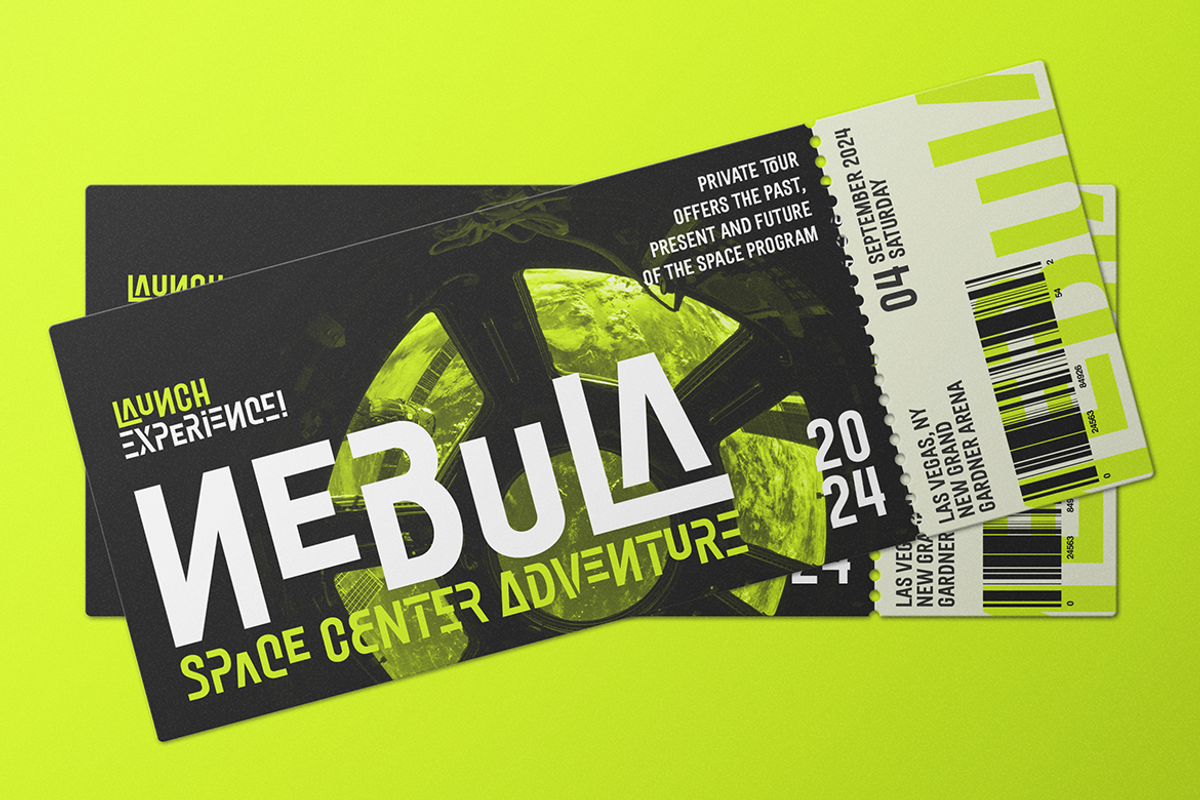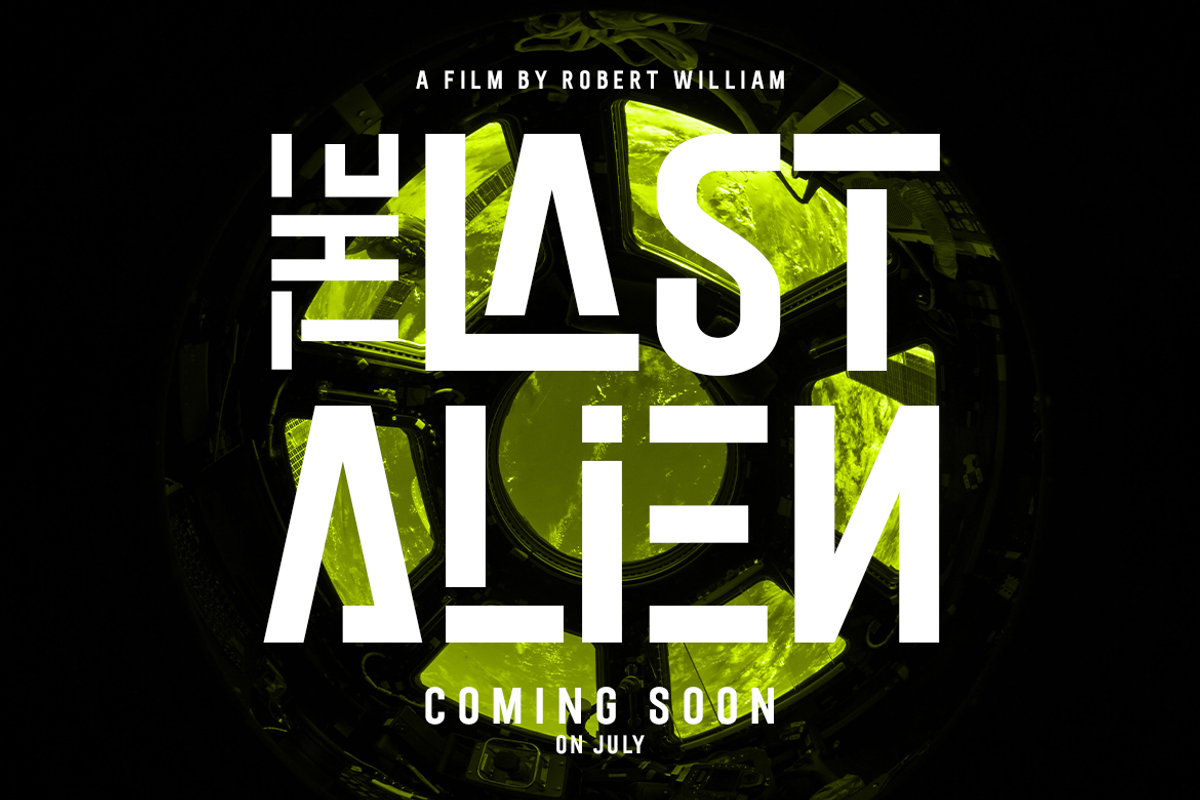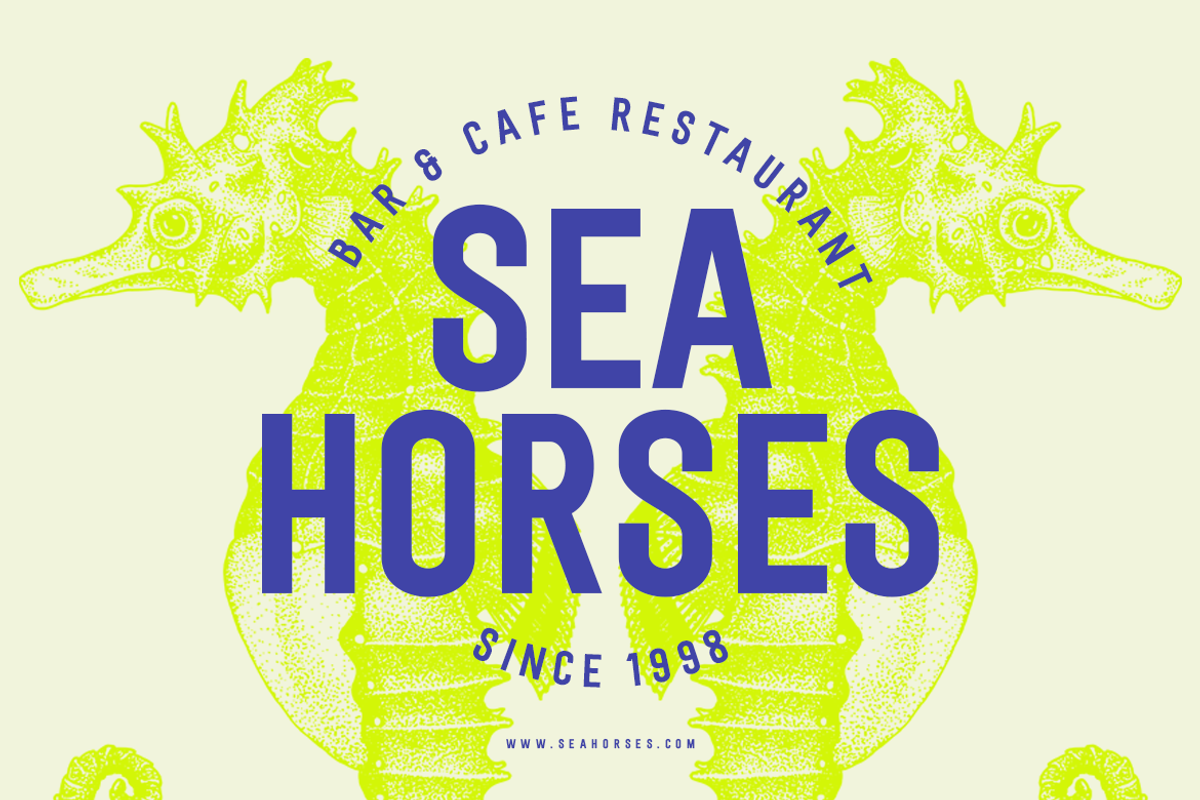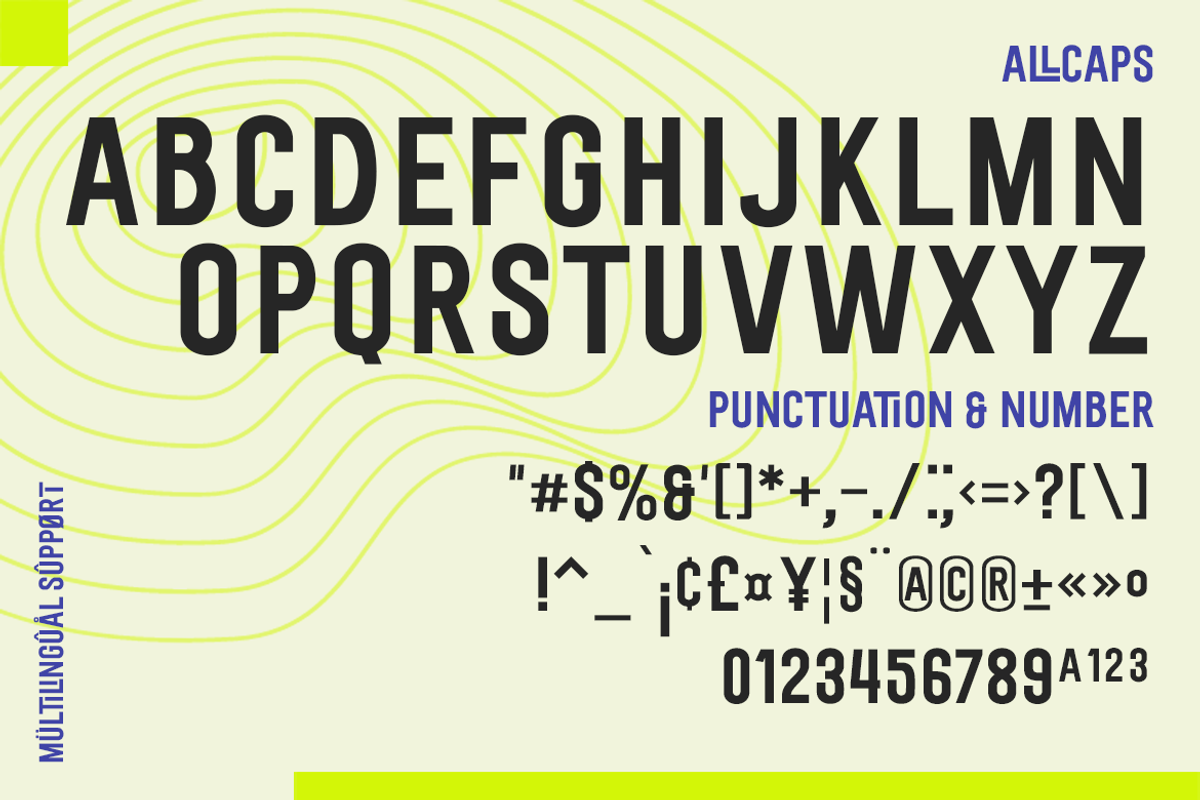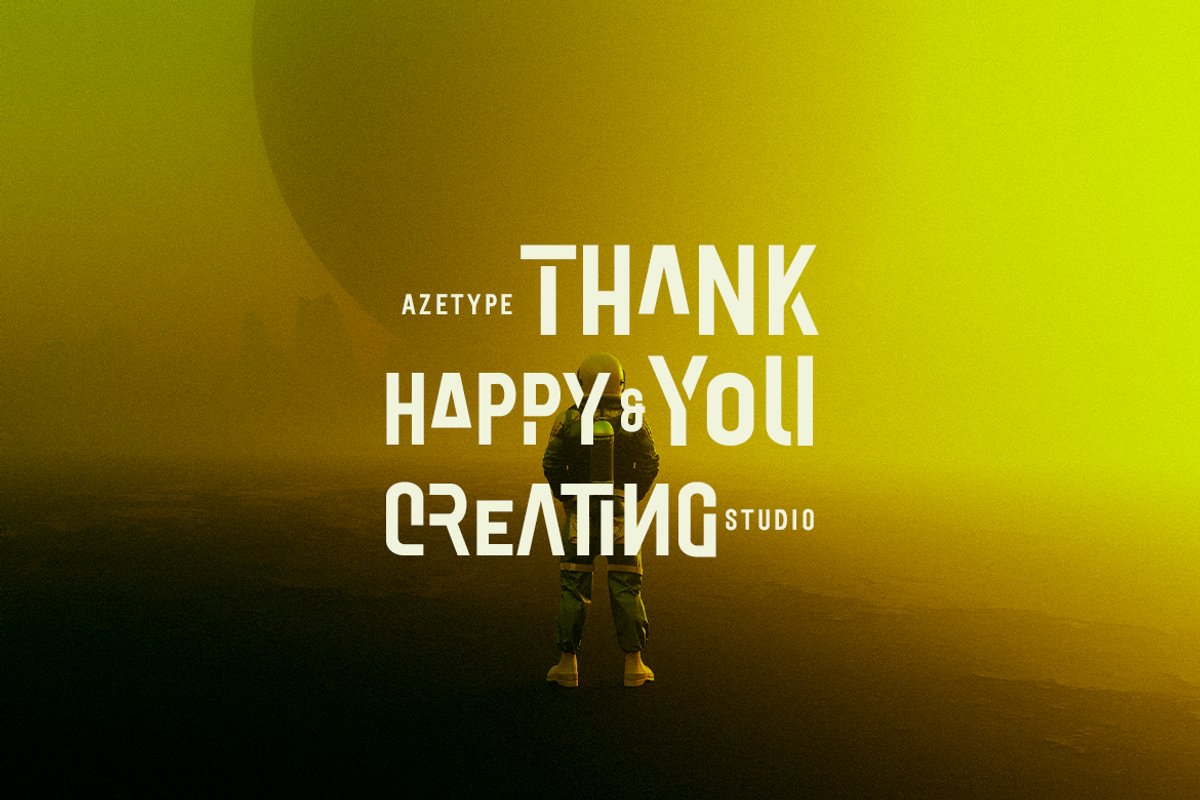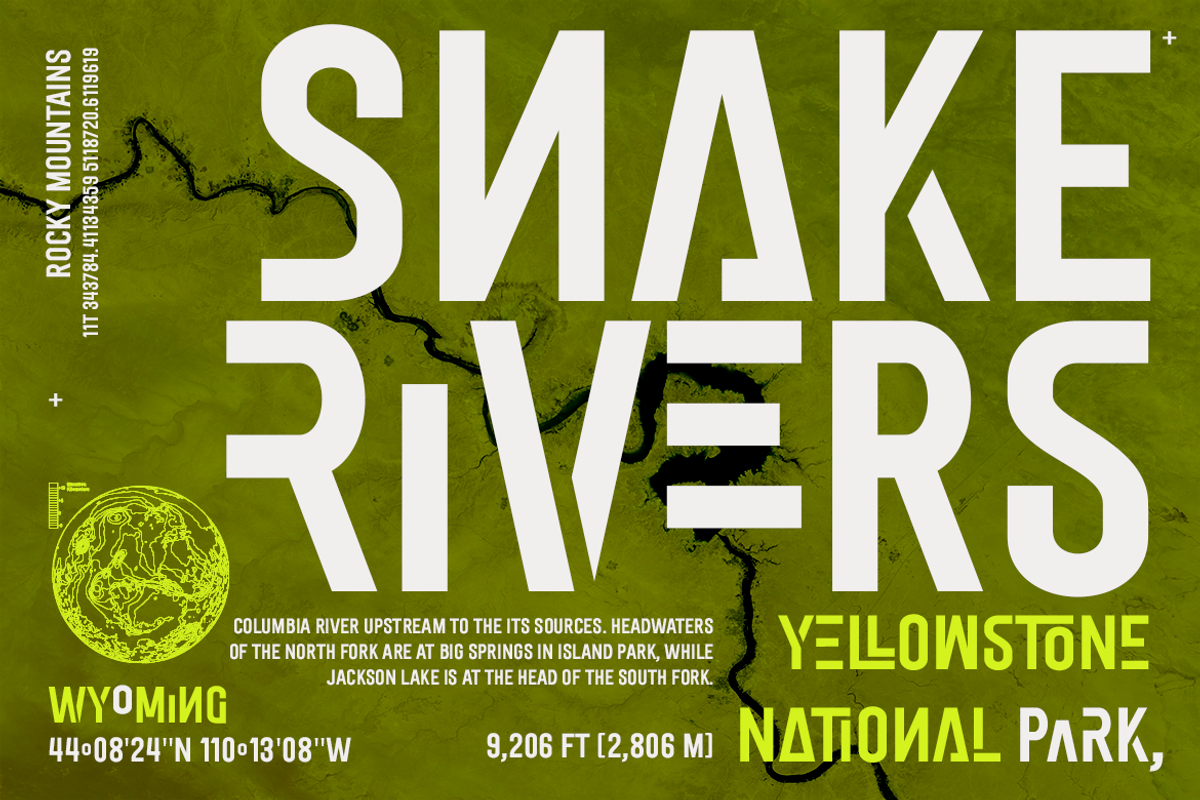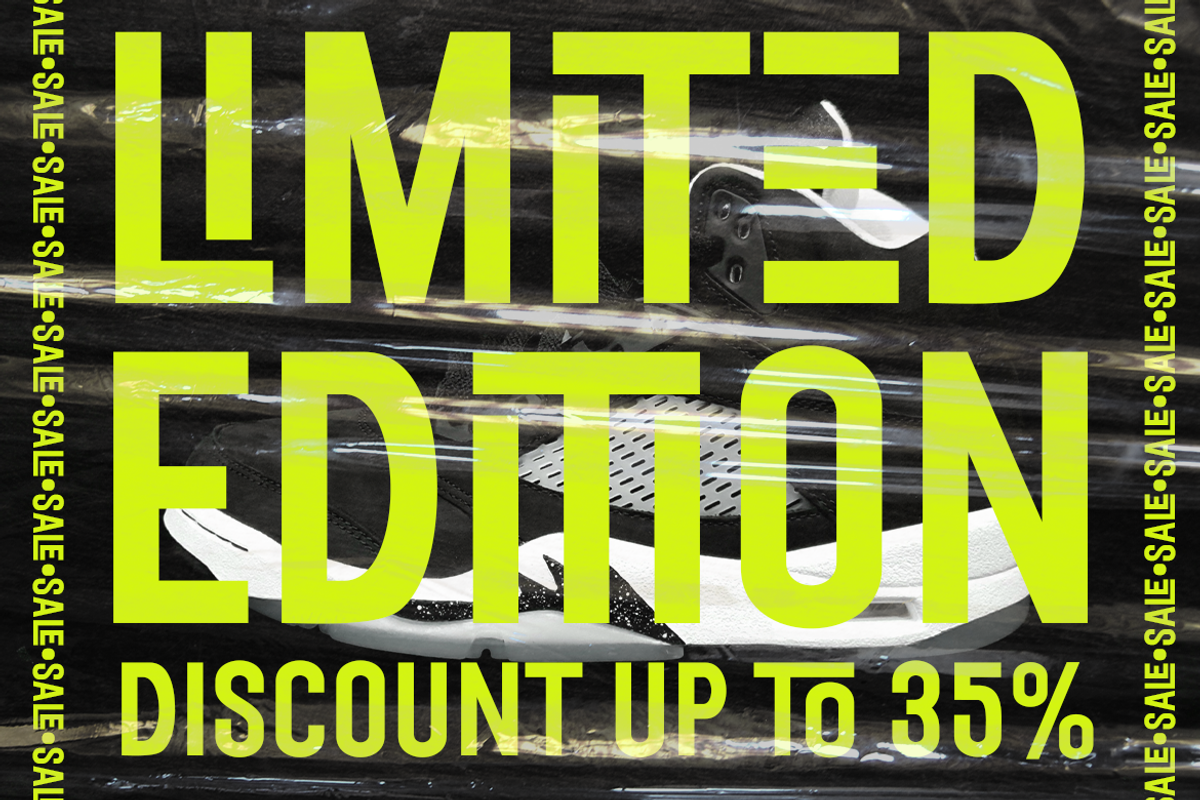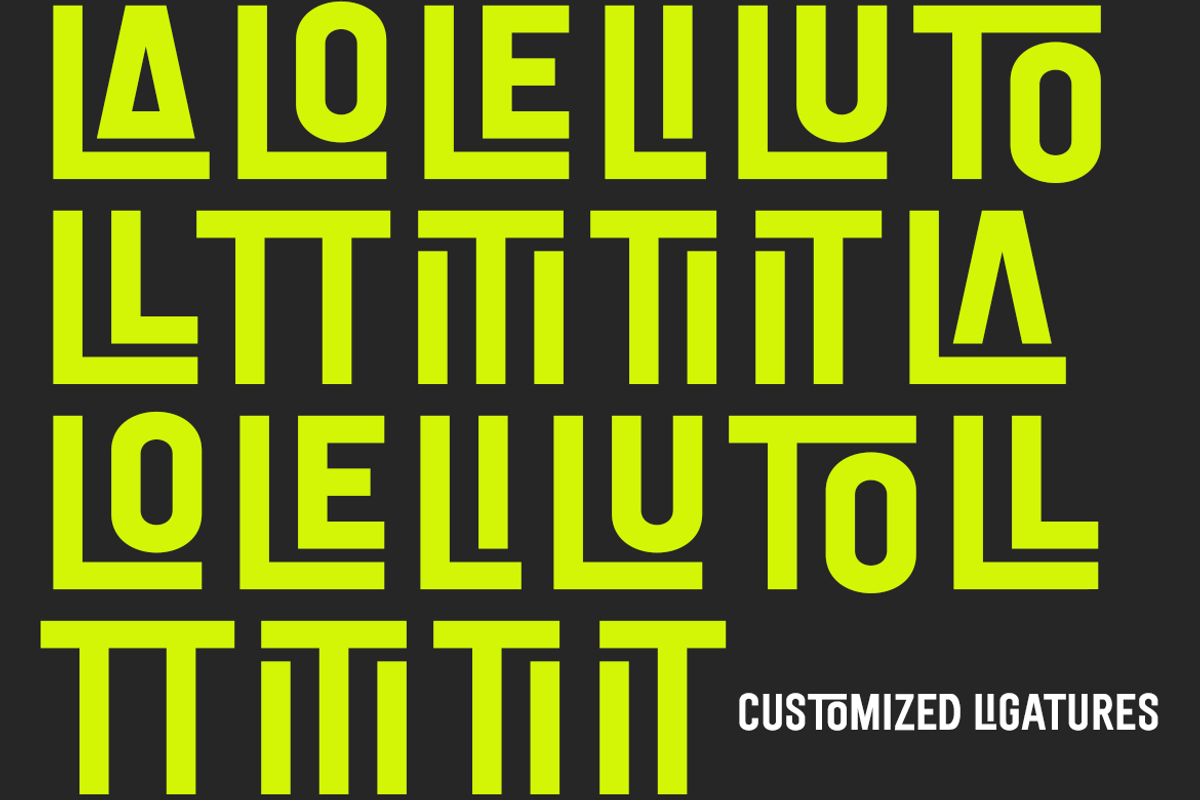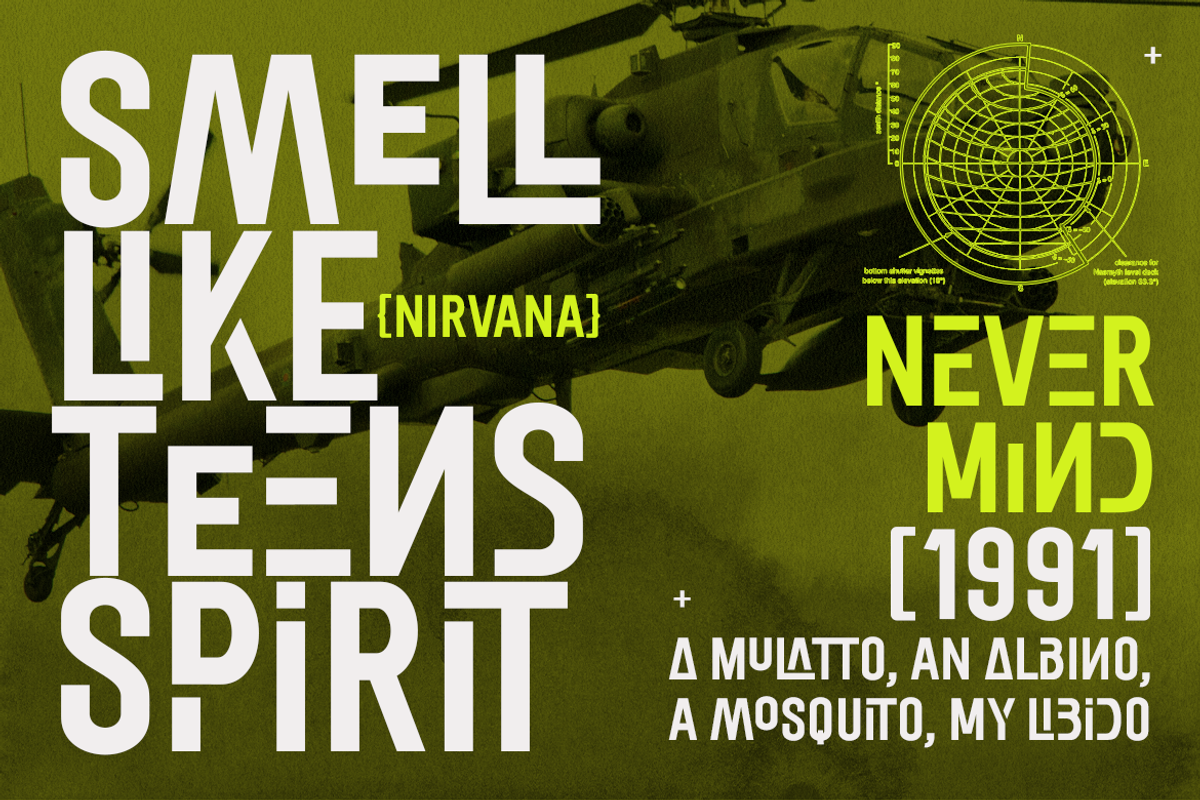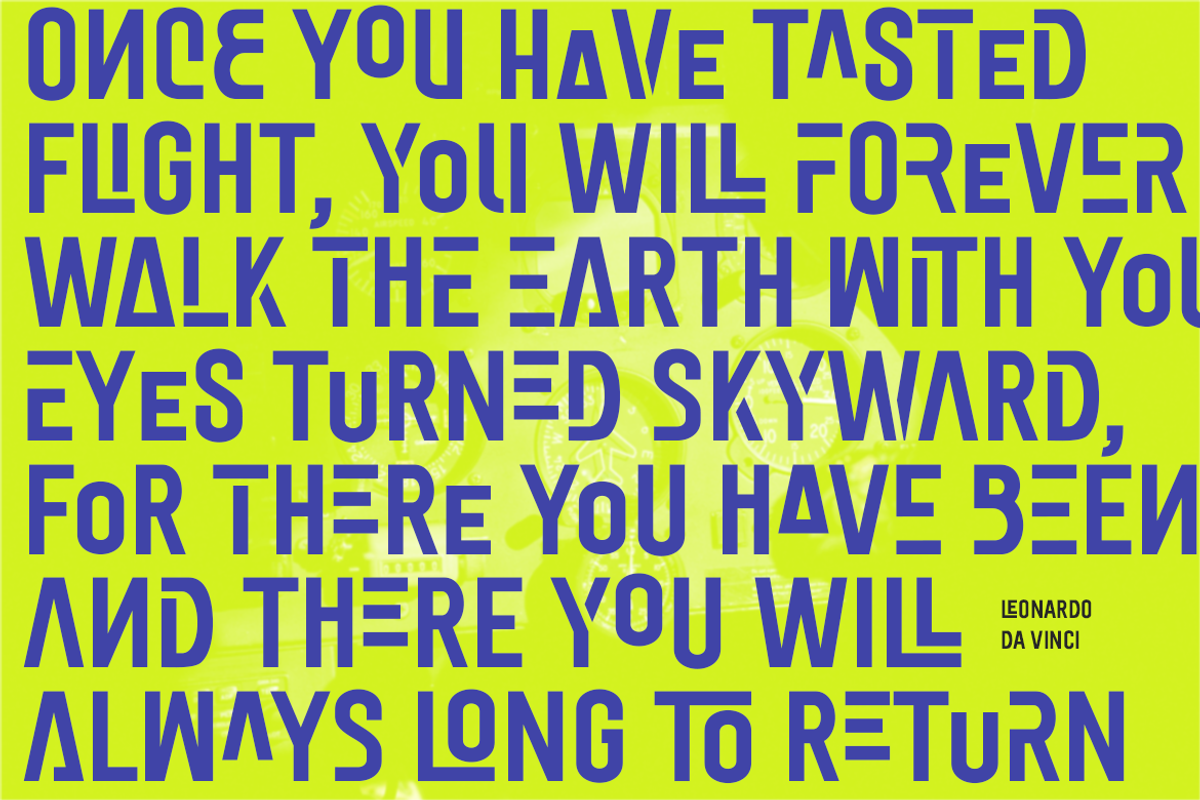
Sanuroemi • A Display Sans Serif
Presenting Sanuroemi Font! A Display San Serif with more alternates. This font is made with the perfect combination of each character. You can type by Mix & Match to get a unique combination. It looks original and can be used for all your project needs. Each glyph has its own uniqueness and when meeting with others will provide dynamic and pleasing proximity. This font can be used at any time and on any project.
So, Sanuroemi Font can't wait to give its touch to all your design projects such as quotes, poster design, personal branding, promotional materials, logotype, product packaging, etc.